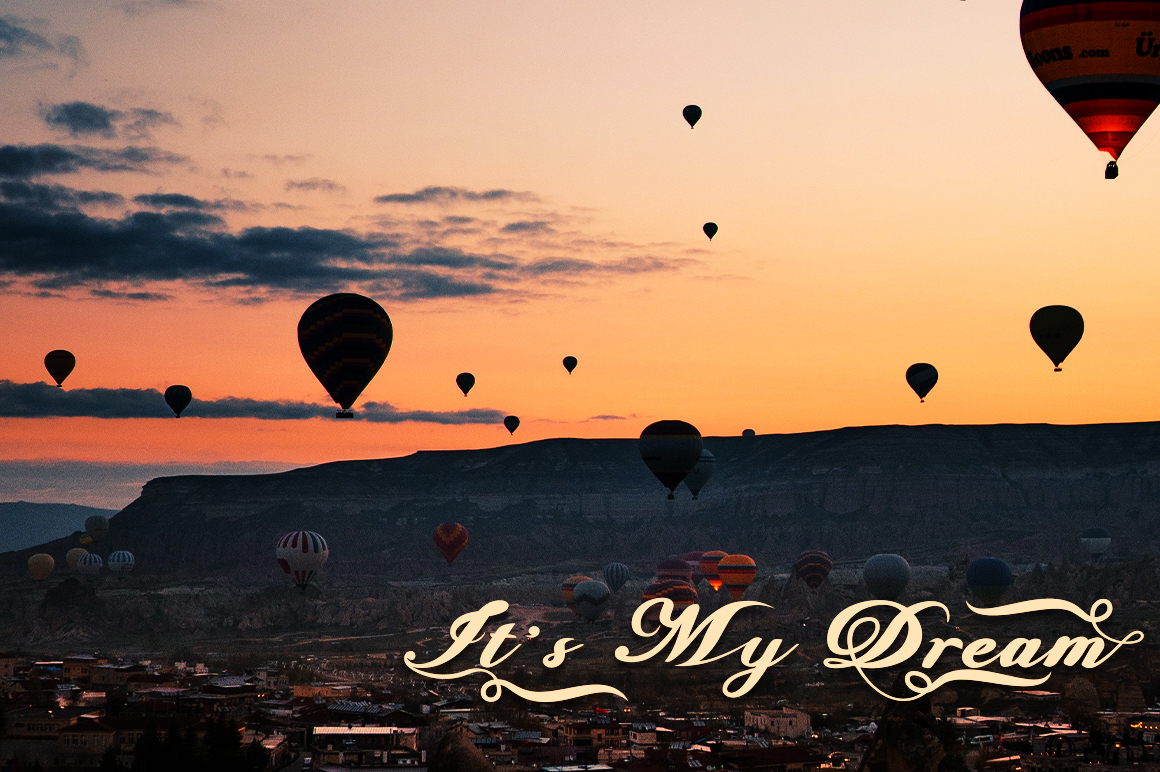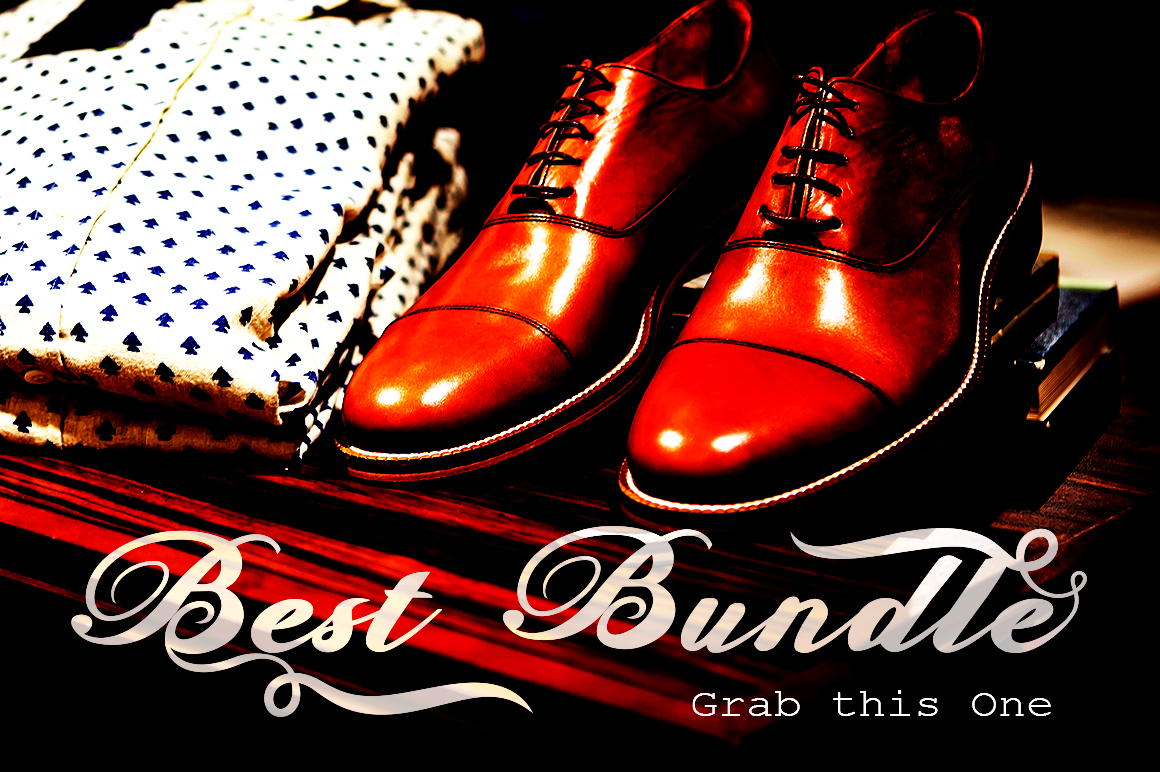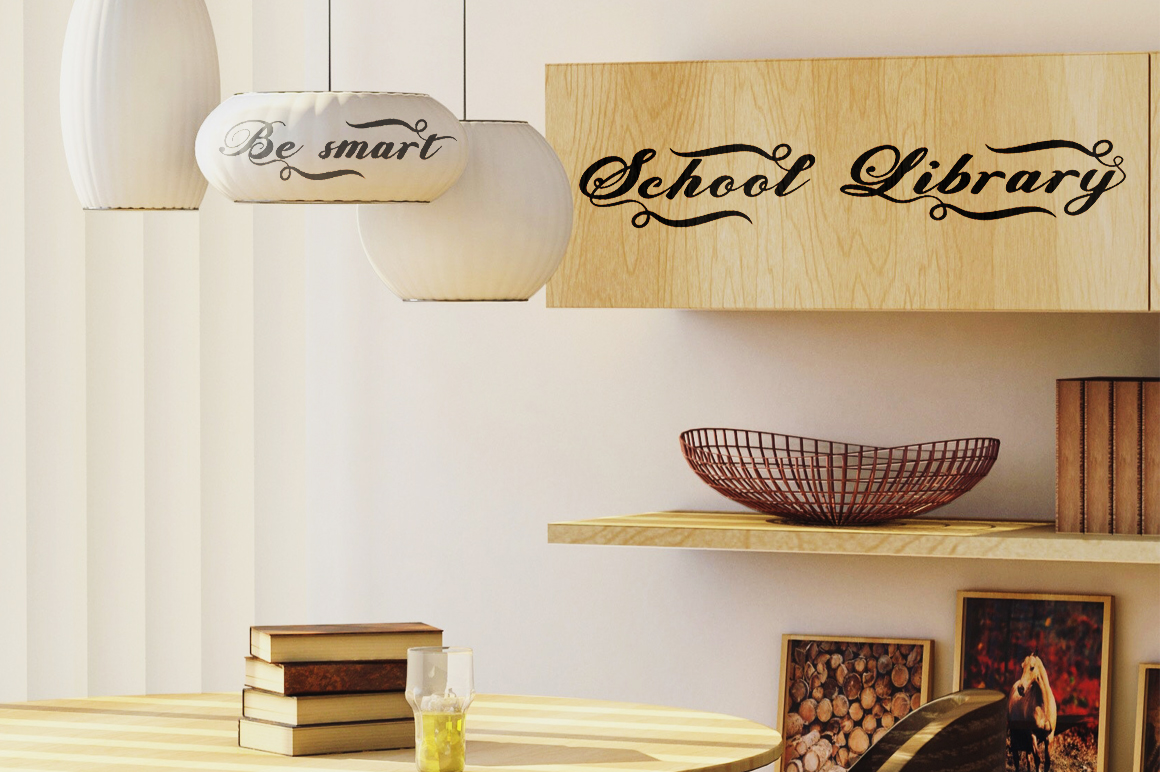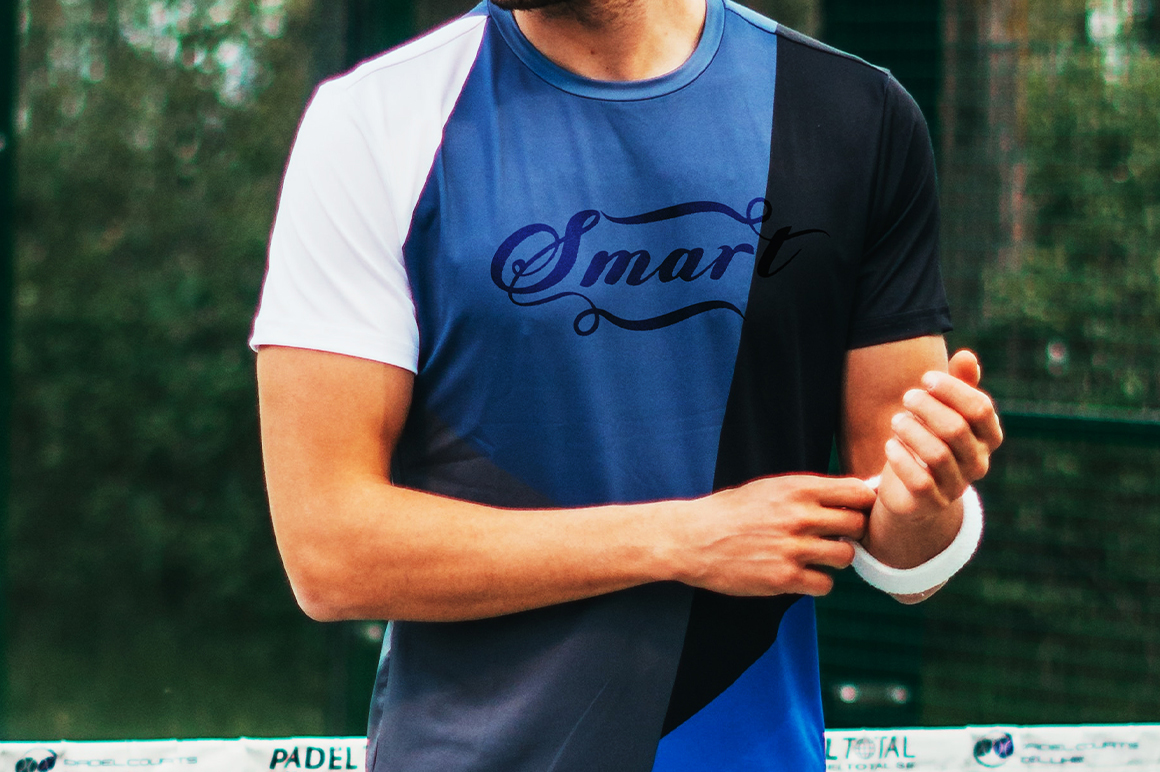
Cappadocia Calligraphy Font
This is a beautiful, cursive and bold handwritten font, created to give your titles and logo projects an elegant touch of style. This font is PUA encoded which means you can access all of the glyphs and swashes with ease!